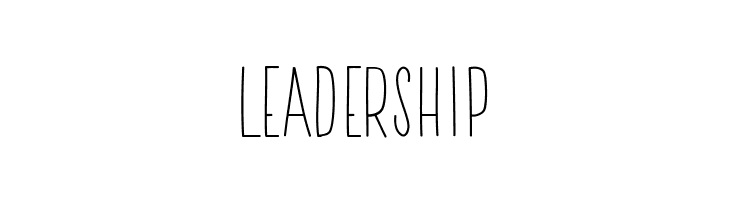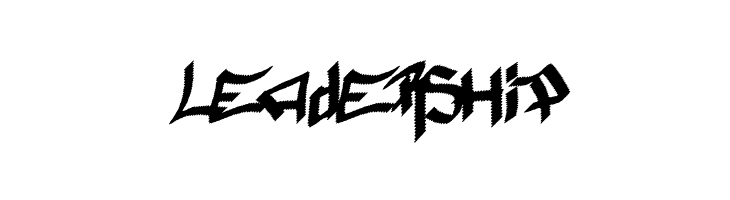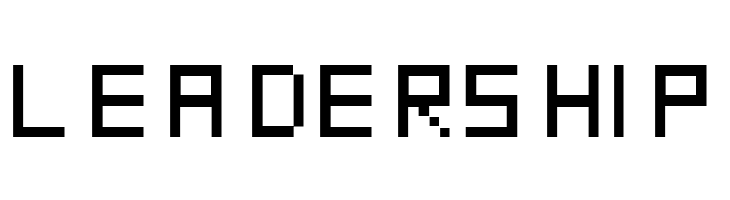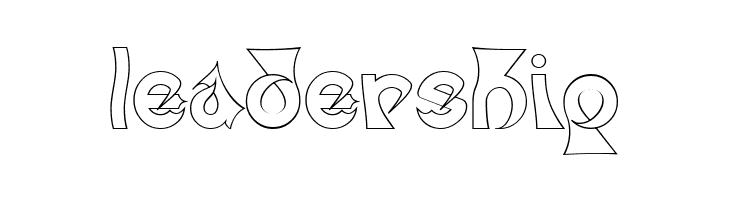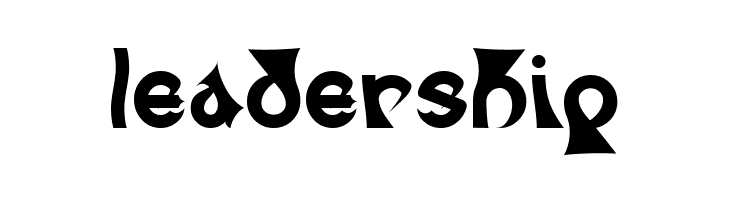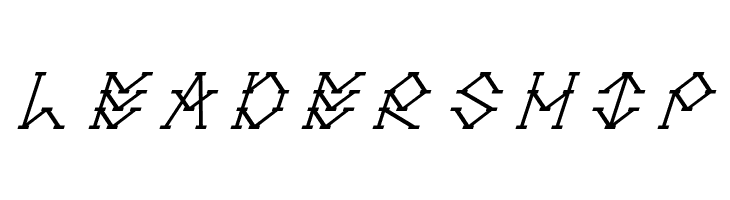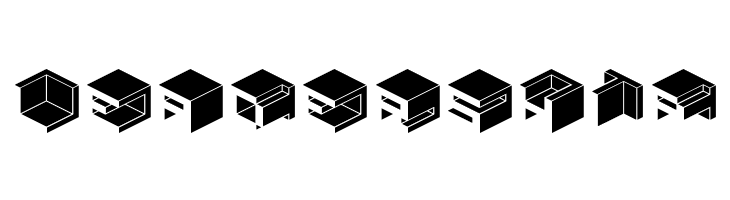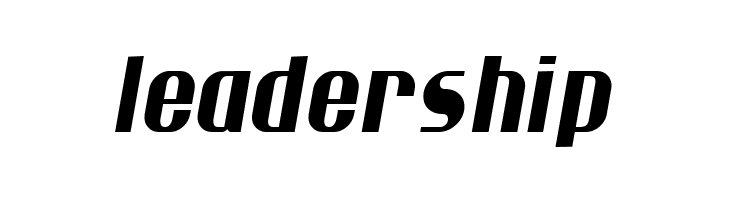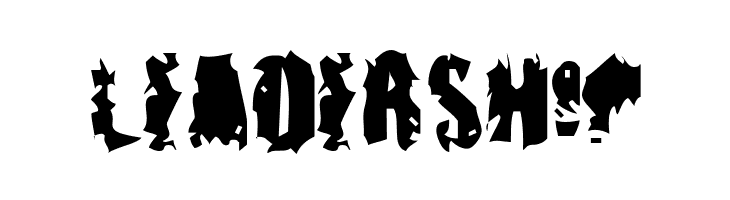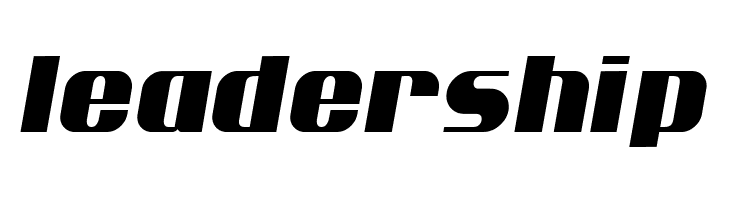
( Parker Creative - Alan Parker - fontbundles.net/parker-creative )
A bold, modern font with partial inline and rounded edges.
( Parker Creative - Alan Parker - fontbundles.net/parker-creative )
A bold, modern font with a partial inline style for a unique, structured look.
( Parker Creative - Alan Parker - fontbundles.net/parker-creative )
A modern, rounded font with partial inline detailing for a sleek and sophisticated look.
( Parker Creative - Alan Parker - fontbundles.net/parker-creative )
A bold, modern sans-serif font with clean lines and geometric shapes.
( Parker Creative - Alan Parker - fontbundles.net/parker-creative OFF SITE )
A modern, rounded sans-serif font with bold, smooth curves and a friendly appearance.
A bold, geometric font with a futuristic, stencil-like design.
( Fonts by Glyphobet Font Foundry - Matt Chisholm - http://glyphobet.net/typography/ )
A bold, playful font with geometric and whimsical elements.
( Fonts by Glyphobet Font Foundry - Matt Chisholm - http://glyphobet.net/typography/ )
A bold, decorative font with exaggerated forms and dynamic shapes.
( Fonts by www.tepidmonkey.net )
A bold, geometric font ideal for impactful headlines and titles.
( Fonts by www.tepidmonkey.net )
A bold, condensed font with a modern and impactful style.
( Fonts by www.tepidmonkey.net )
A modern, italicized, and condensed font with a sleek and dynamic style.
( Fonts by www.tepidmonkey.net )
A bold, italic font with a dynamic and energetic style.
A futuristic, angular font with sharp edges and geometric shapes.
A playful, handwritten font with tall, narrow letters and a casual style.
A bold, rounded font with smooth curves and consistent width, ideal for modern designs.
A bold, rounded, and modern geometric font with uniform thickness.
( Fonts by Mr Fisk - Mike Larsson - fontorama.net )
A bold, geometric font with a punk rock aesthetic and condensed, thin structure.
( Creative Media Lab - creativemedialab.net )
An elegant, flowing script font with a natural handwriting style.
( JBFoundry - Jean Boyault - jean.boyault.pagesperso-orange.fr/ )
An elegant script font with graceful curves and intricate details.
A bold, modern font with characters enclosed in squares, offering a geometric and structured look.
A dynamic and fluid script font with smooth, flowing lines and a lively appearance.
( Tama Putra - be.net/tmptr )
A bold, jagged font with dynamic, energetic styling.
( graphicriver.net/user/joiaco )
A playful, hand-drawn font with a whimsical and informal style.
( graphicriver.net/user/joiaco )
A playful, hand-drawn font with quirky, uneven strokes.
A 3D cubic font with a modern, geometric style.
A 3D cubic font with characters formed by negative space, offering a futuristic and architectural style.
( Fonts by AEnigma - www.aenigmafonts.com )
A 3D isometric font with bold, geometric cube-like characters.
A 3D geometric font with characters enclosed in cube-like structures, offering a futuristic and architectural style.
A modern, cube-structured font with a bold, geometric, and three-dimensional design.
A modern, cube-inspired font with bold, geometric characters.
( Fonts by www.tepidmonkey.net )
A bold, modern, and condensed font with uniform strokes and rounded edges.
( Qwerks - Joanne Taylor - graphicriver.net/user/joiaco )
Modern, bold pictogram set for real estate and property themes.
( Herlan - www.behance.net/herlannawwi )
A sophisticated, slanted script font with elegant curves and balanced contrast.